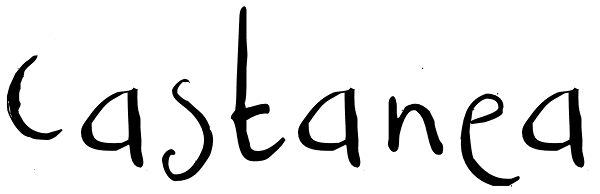
Castanea
The chestnut ("castanea") is one of my favorite trees. I used to collect the chestnuts and made chestnut-figurines out of them, using bamboo sate skewers. Castanea font is a calligraphic typeface with an uneven baseline and some messy characters...
Castanea
Castanea Italic